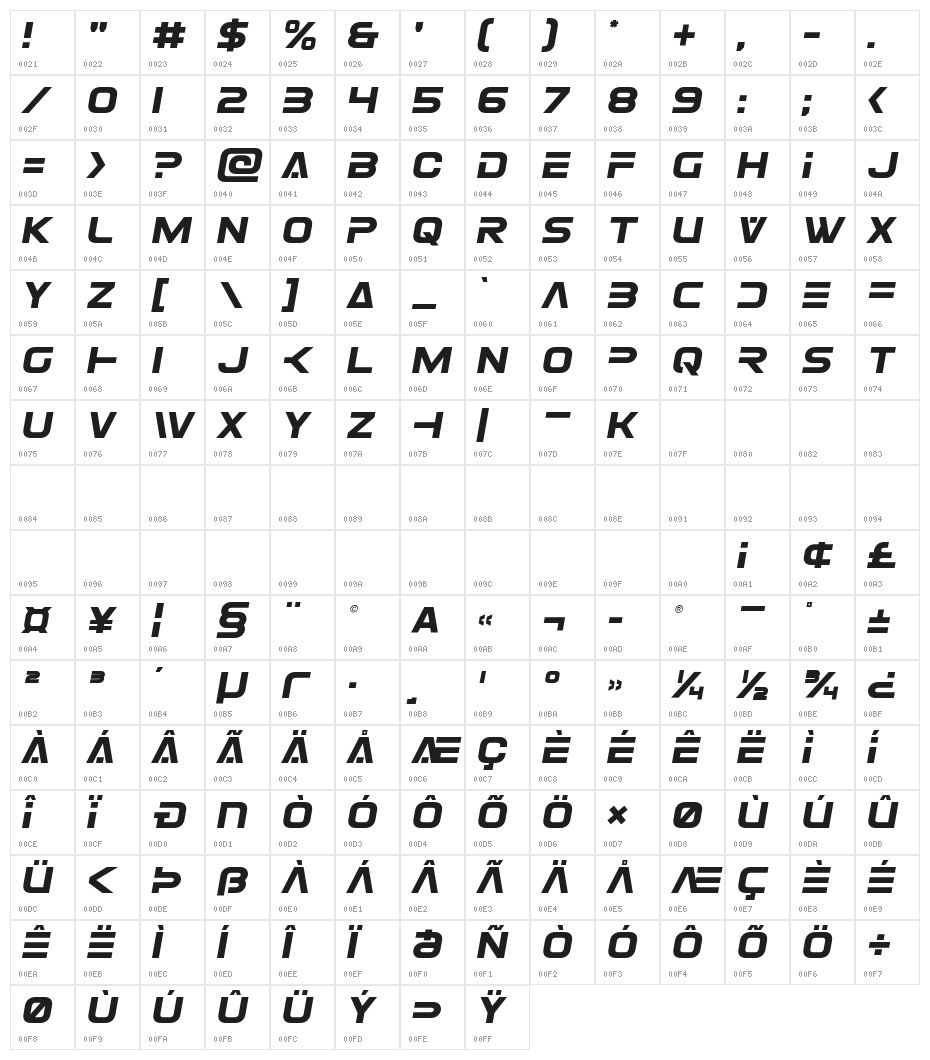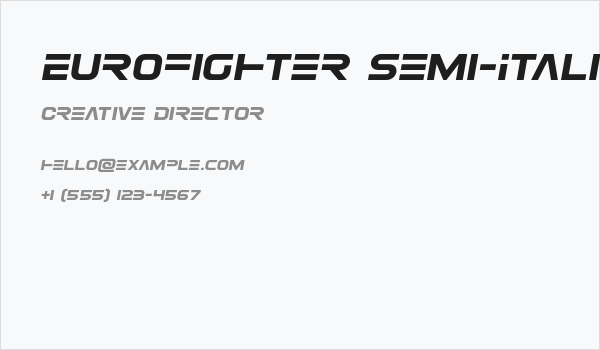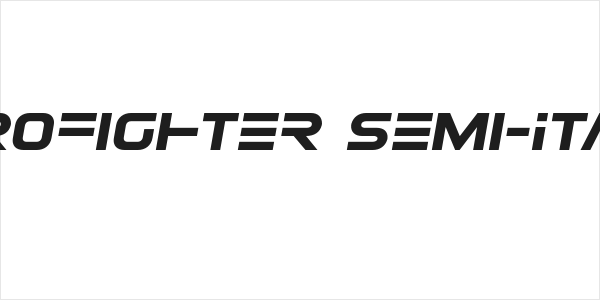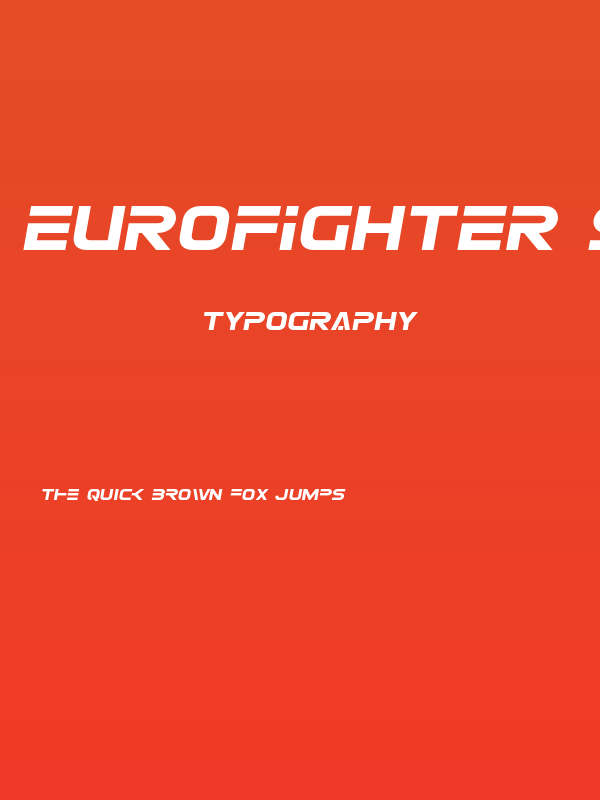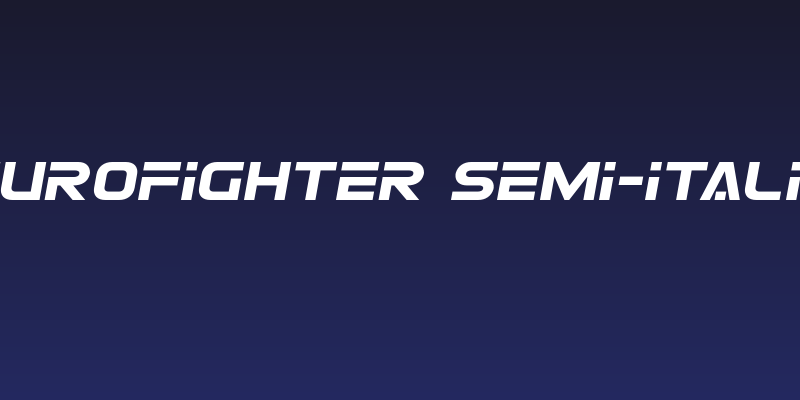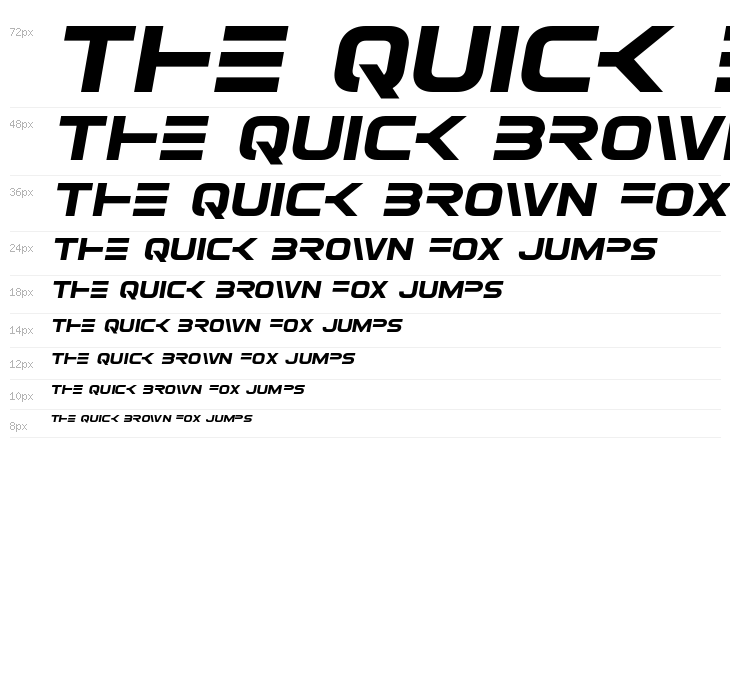
Eurofighter Semi-Italic Font
Eurofighter Semi-Italic Description
This font features a sleek, modern design with a semi-italic slant, giving it a dynamic and forward-moving appearance. The characters are bold and geometric, with sharp angles and clean lines that convey a sense of speed and precision. The uppercase and lowercase letters maintain a consistent style, with the lowercase letters slightly smaller but equally impactful. The numerals are distinct and easy to read, matching the overall aesthetic of the alphabet. Special characters are included, maintaining the same bold and angular design. This font is ideal for projects that require a contemporary and energetic feel, such as technology branding, sports team logos, or automotive advertising.